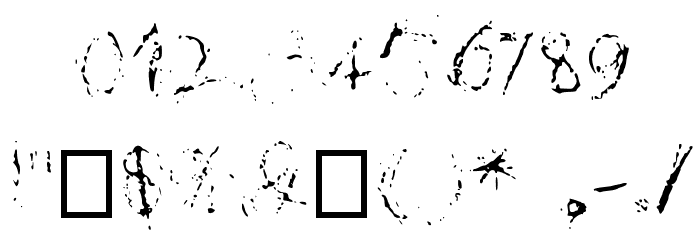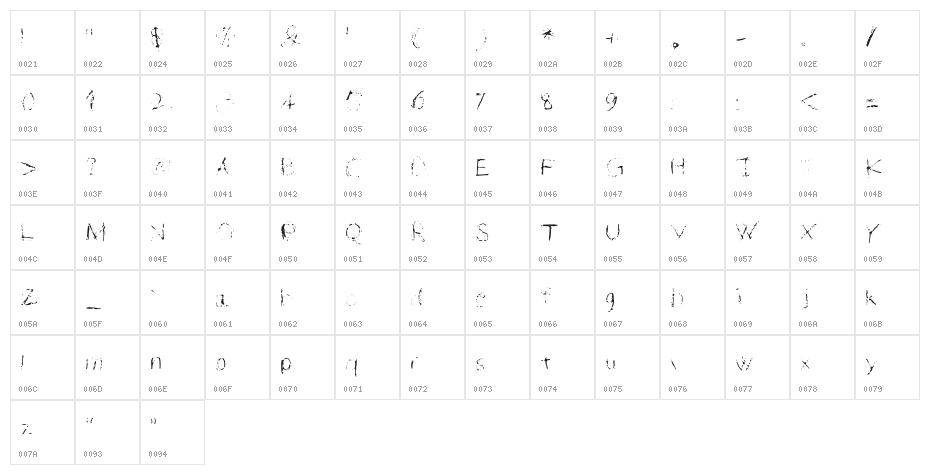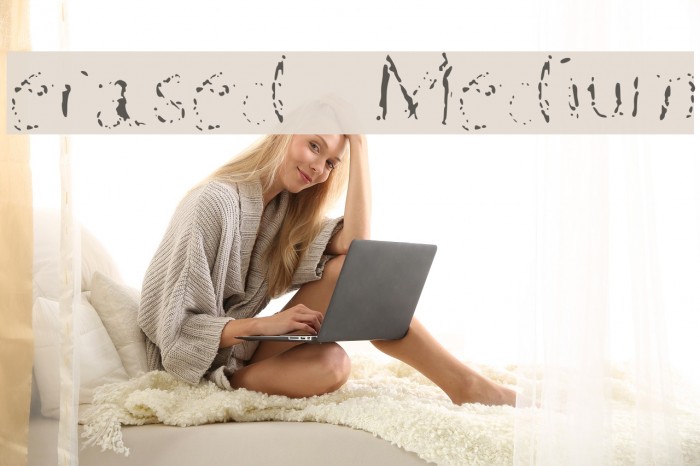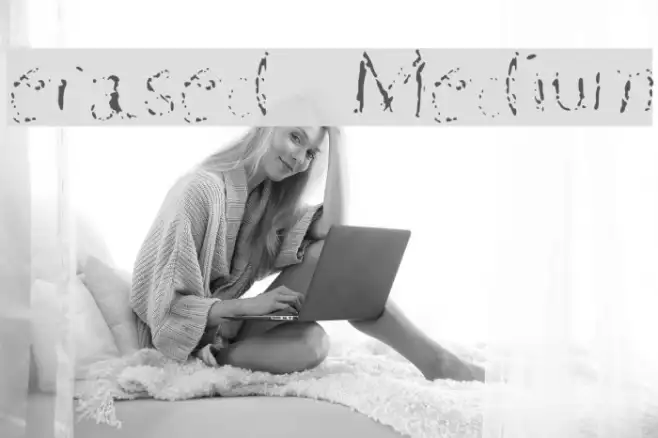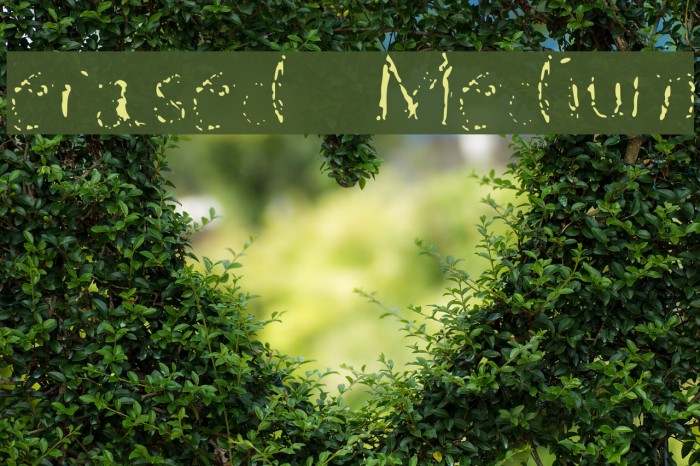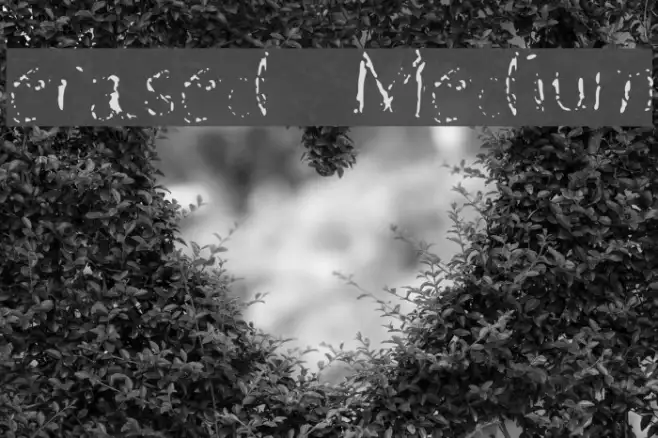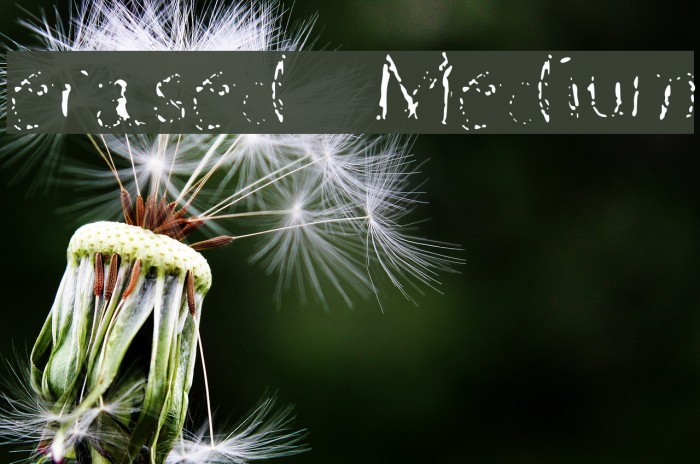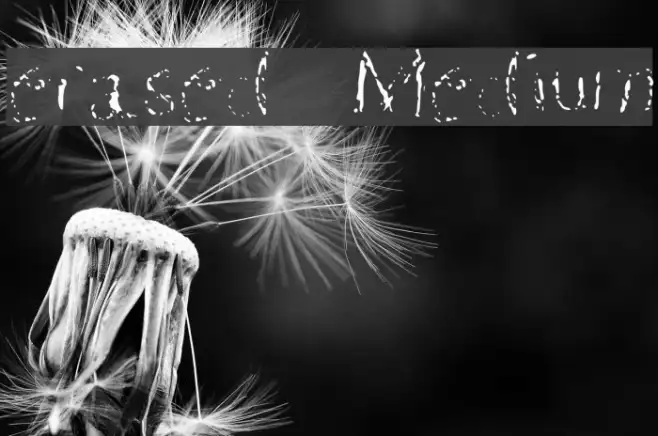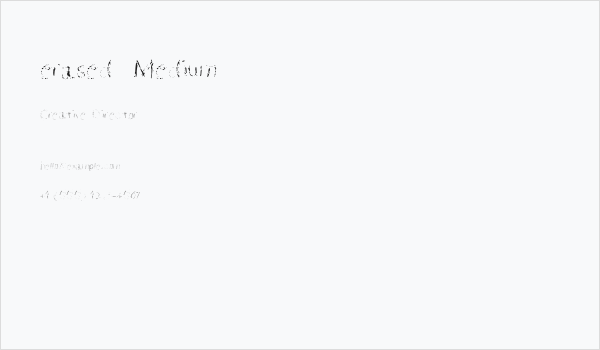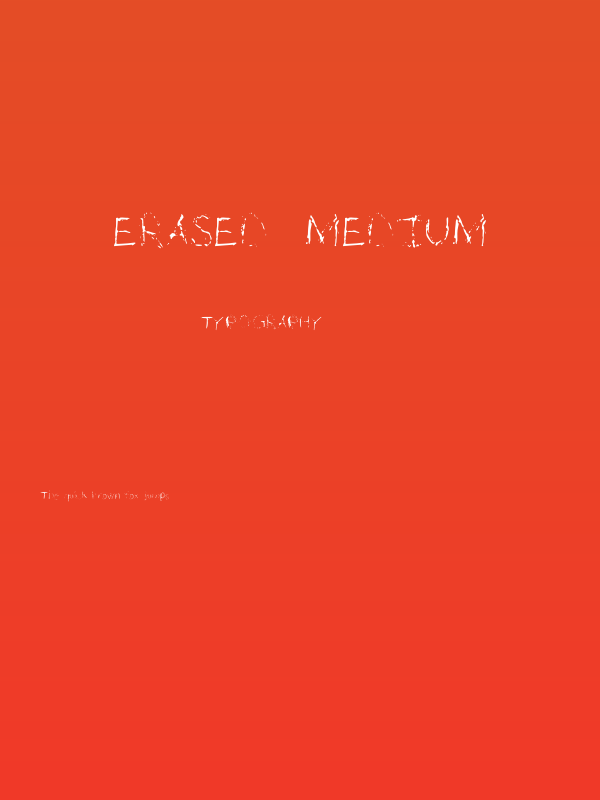
erased Medium Font
erased Medium Description
This font features a distressed, eroded appearance, giving it a unique, weathered look. The characters appear as if they have been partially erased or worn away, creating a sense of age and texture. This style is particularly effective for designs that aim to convey a vintage or grunge aesthetic. The uppercase and lowercase letters maintain a consistent style, with irregular edges and varying levels of erosion. Numbers and special characters follow the same design principle, ensuring a cohesive look across all glyphs. The font's distinct appearance makes it stand out, ideal for projects that require a bold statement.
| Proposed Projects | Ideal for album covers, posters, branding for vintage-themed products, or any design needing a rugged, aged look. |